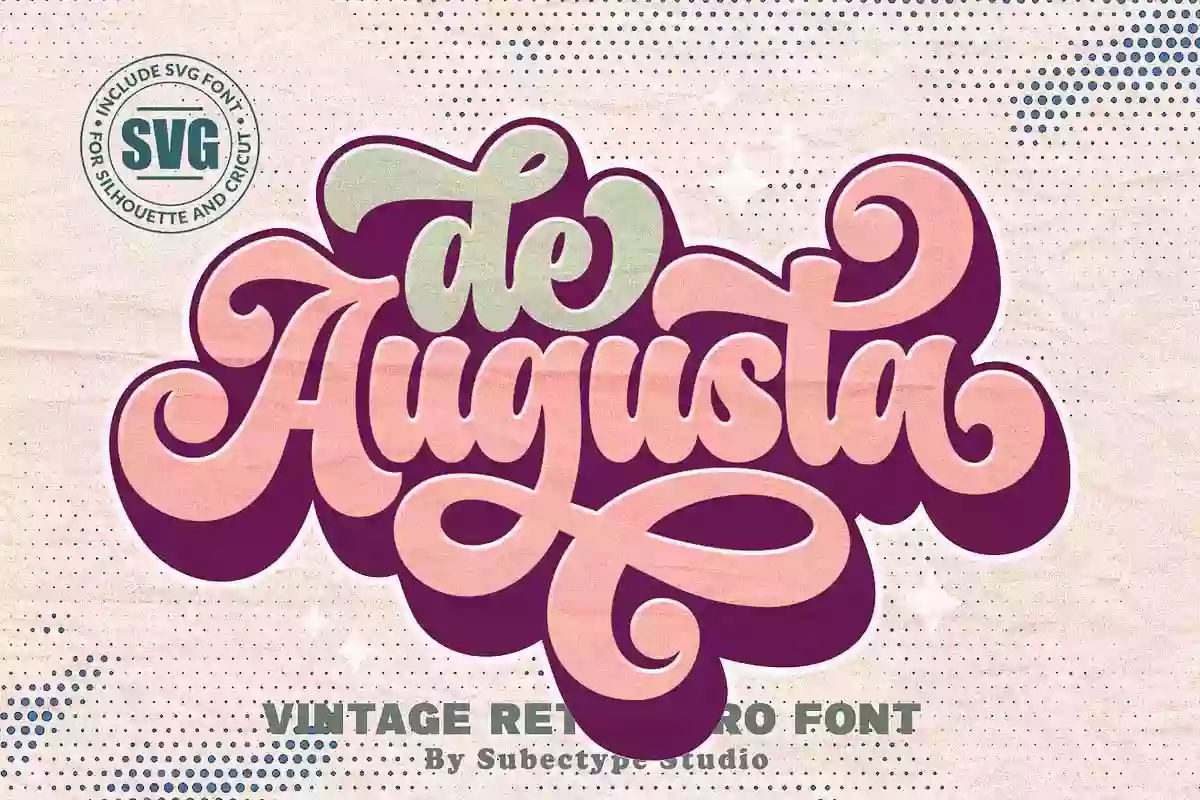
De Augusta Font
De Augusta Font is a vintage retro typeface inspired by the bold typography of the 70s and 80s. It brings a nostalgic feel with strong, eye-catching lettering, making it ideal for vintage and retro-themed designs. Whether you’re working on badges, logos, t-shirts, posters, branding, packaging, signage, or book covers, this font adds a timeless charm to your project. Its bold and stylish appearance captures the essence of classic typography, making it a great choice for designers who love retro aesthetics.
Please note that De Augusta does not come with shadow or extrude effects. The effects shown in the preview were manually created for demonstration purposes. If you’d like to achieve a similar look, you can follow a tutorial to add these effects yourself. This font was designed using CorelDRAW software, ensuring precision and high-quality letterforms for your creative projects.